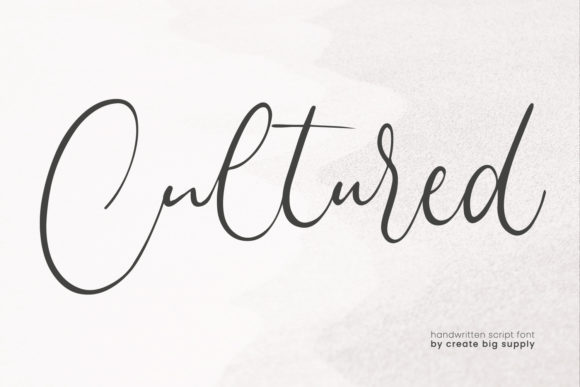
Introduce the Cultured Font, a masterpiece of calligraphy brimming with elegance and refinement. This script font, meticulously crafted by Create Big Supply, is a delightful blend of grace and beauty. It is the perfect font for adding a touch of sophistication to your designs, be it for tattoos, branding, logos, invitations, or any other purpose you can dream of.
Embrace the aura of beauty that Cultured Font carries. Each letter is meticulously handwritten, capturing the essence of artistry and finesse. The delicate strokes, like a painter's brush, dance upon the canvas of your designs, leaving behind a trail of elegance and charm. With its flowing curves and graceful lines, Cultured Font brings a touch of timelessness to your creations.
Unleash your creative potential with the boundless possibilities that Cultured Font offers. Let your imagination run wild as you explore the realm of design with this captivating font. The sky's the limit when it comes to expressing your unique style. Whether you're a seasoned designer or a passionate amateur, Cultured Font is your gateway to creating visually stunning masterpieces.
Immerse yourself in the world of elegance and class with Cultured Font. Its timeless beauty transcends trends, making it the perfect choice for those who seek sophistication and distinction. From the intricate details of a tattoo to the bold statement of a logo, Cultured Font will elevate your designs to new heights of artistic excellence.